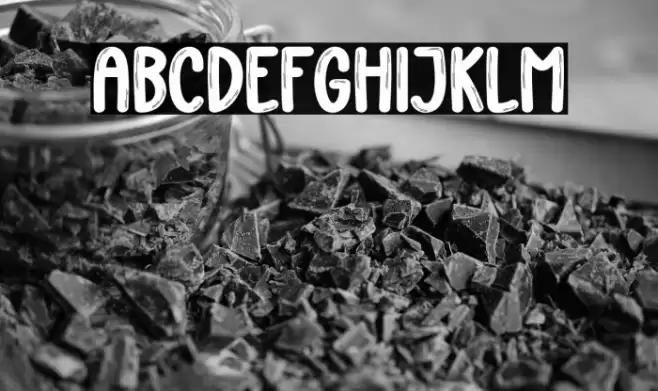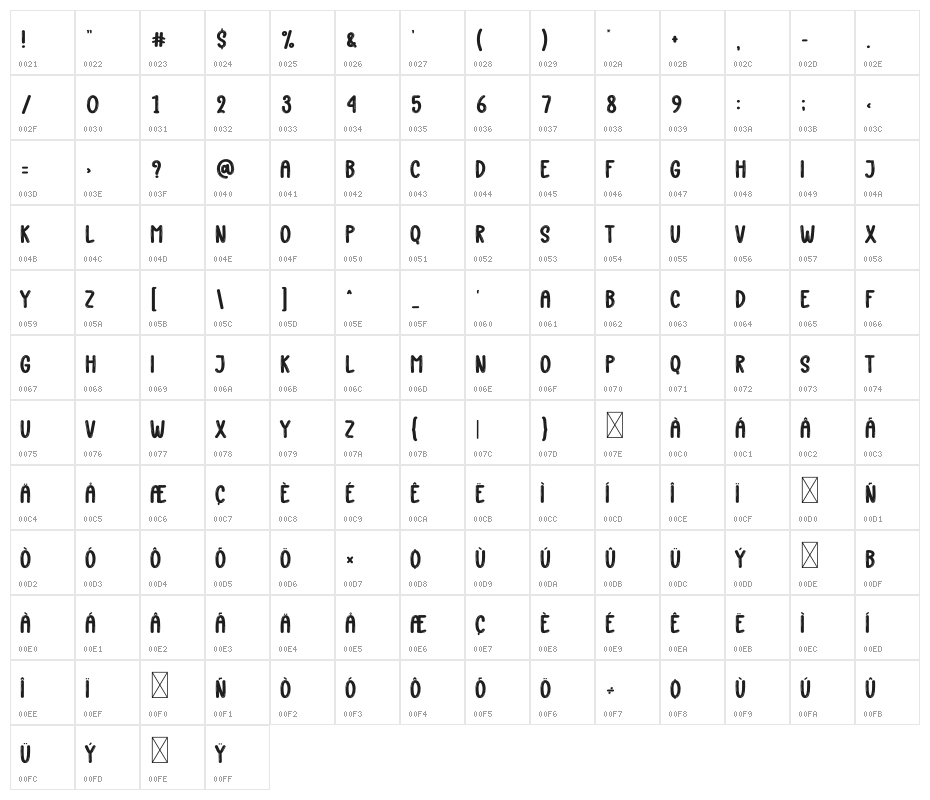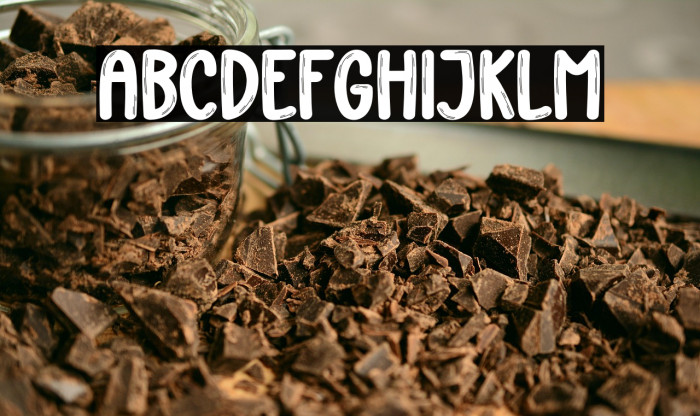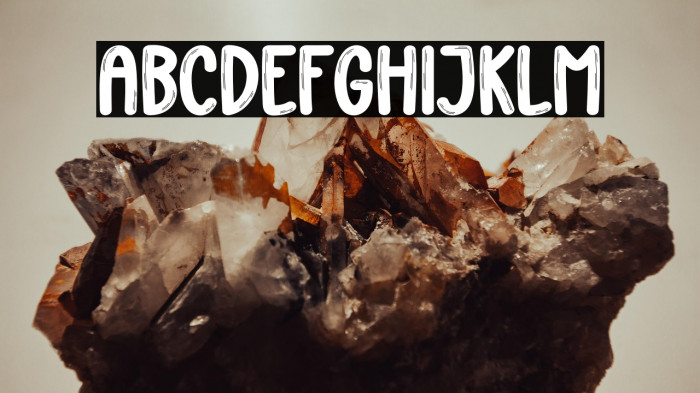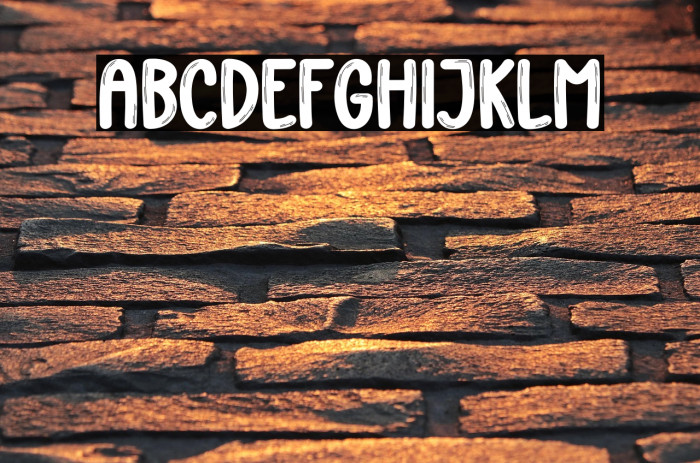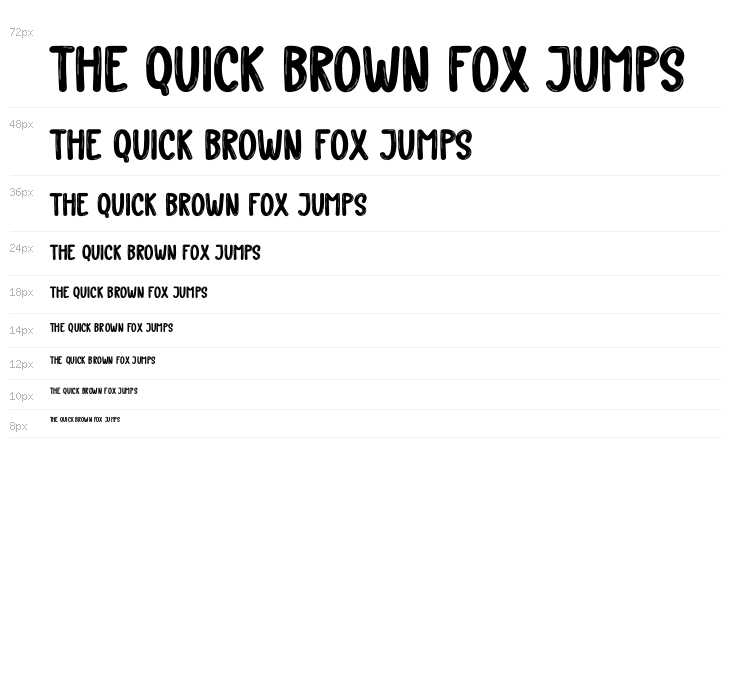
Sugar Christmas Font
Sugar Christmas Description
This playful and bold font features a hand-drawn aesthetic with rounded edges and a slightly irregular baseline, giving it a whimsical and friendly appearance. The characters are thick and substantial, making them highly legible while maintaining a casual, informal style. The font includes both uppercase and lowercase letters, numerals, and a variety of special characters, all maintaining a consistent style that suggests a sense of fun and creativity. Its design is reminiscent of festive or holiday themes, making it ideal for cheerful and lively projects.
A playful, bold font with a hand-drawn, festive style from Christmas (Xmas) fonts.
- Font: Sugar Christmas
- Proposed Projects: Ideal for holiday cards, festive posters, children's books, and playful branding.